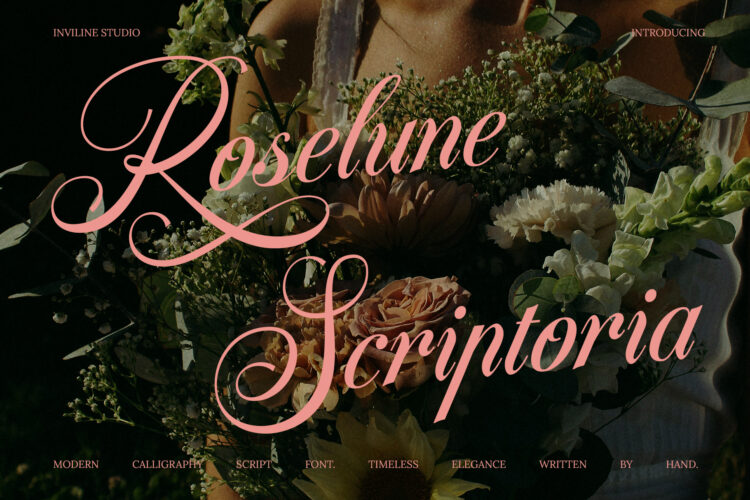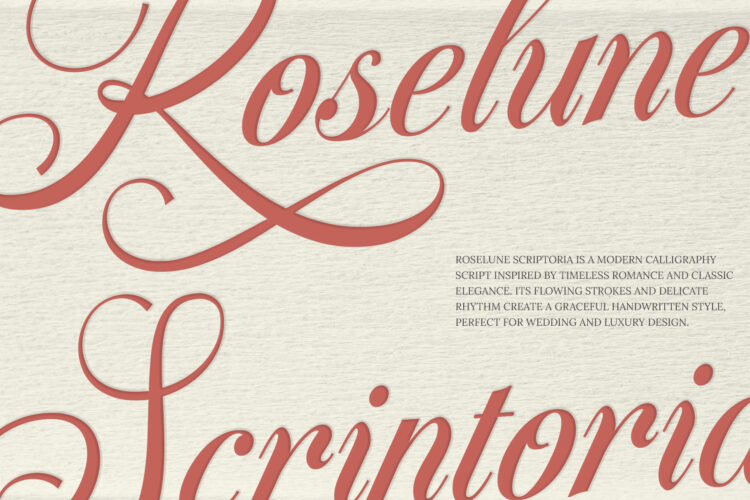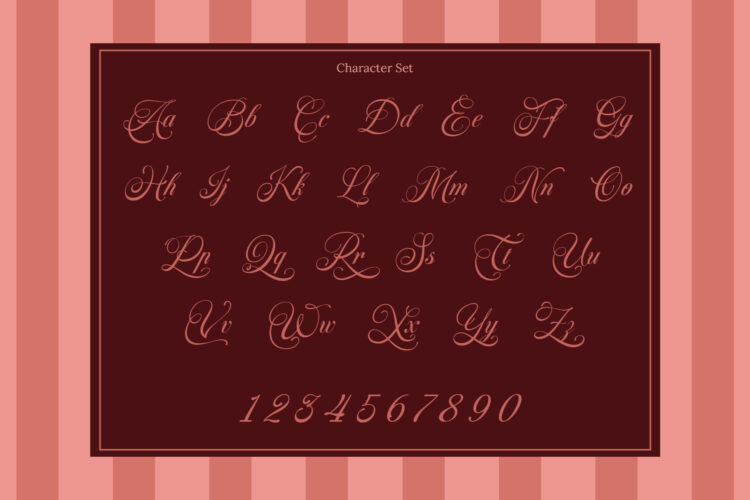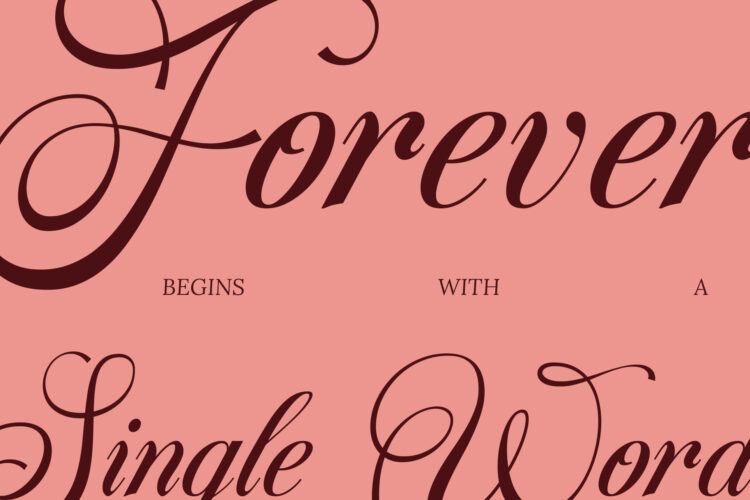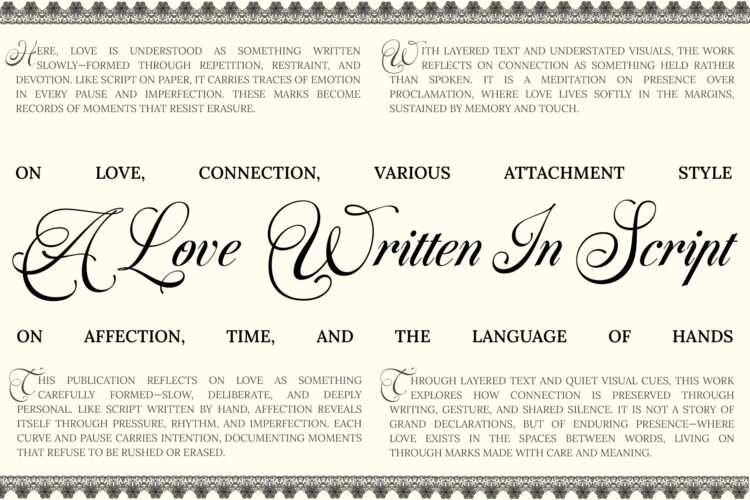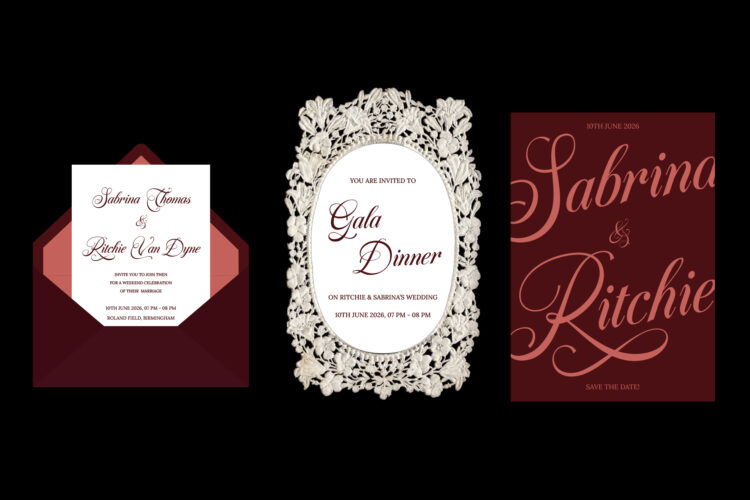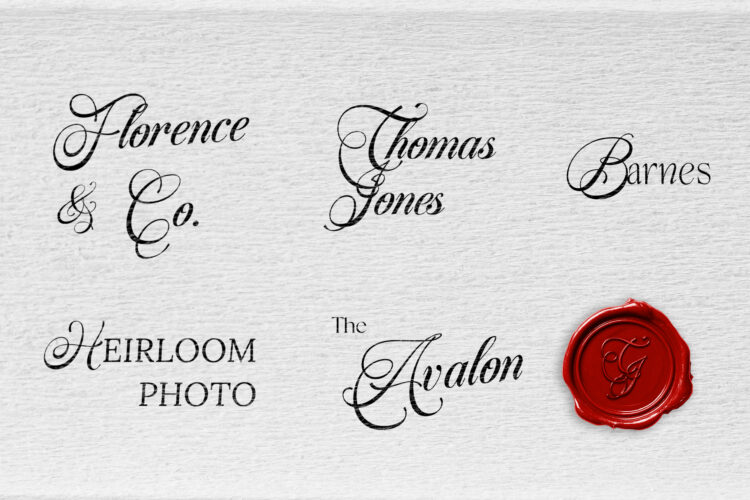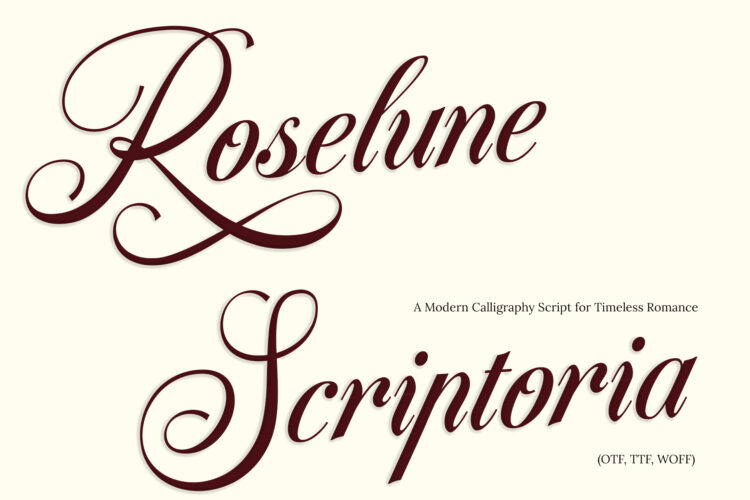
Roselune Scriptoria – Script Font
Roselune Scriptoria is a modern calligraphy script font inspired by timeless romance and classic elegance. With flowing strokes, intricate ligatures, and delicate curves, it offers a handwritten charm perfect for wedding invitations, love letters, luxury branding, and poetic editorials. Elegant yet expressive, Roselune Scriptoria brings soft sophistication into every design touchpoint.
- Swashes & Elegant Ligatures
- Alternates for Select Characters
- Smooth Calligraphic Flow
- Refined Contrast
- Wedding Invitations
- Save the Date Cards
- Love Letters & Poems
- Editorial Design
- Feminine Branding
- Boutique Logos
- Greeting Cards
- Packaging Design
- Journaling Aesthetic
- Event Stationery
- Valentine Template